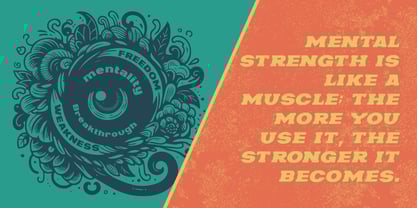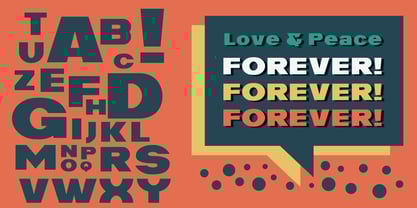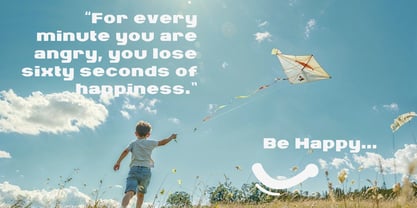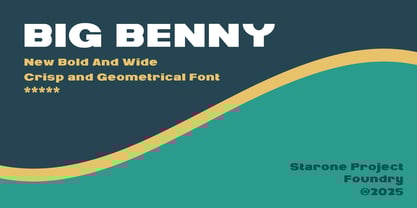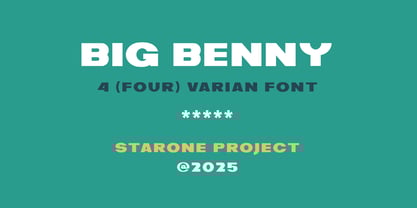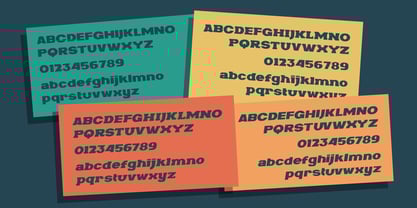
Big Benny
by Starone Project
The Big Benny Font Family was designed by Mohammad Teguh and published by Starone Project. Big Benny contains 4 styles and family package options. More about this family
Big Benny is Bold and Wide font family for any kind design needs. Big Benny is easy to use in any conditions. It is very good for book cover, Business card, banner and any others design media.
Designers: Mohammad Teguh
Foundry: Starone Project